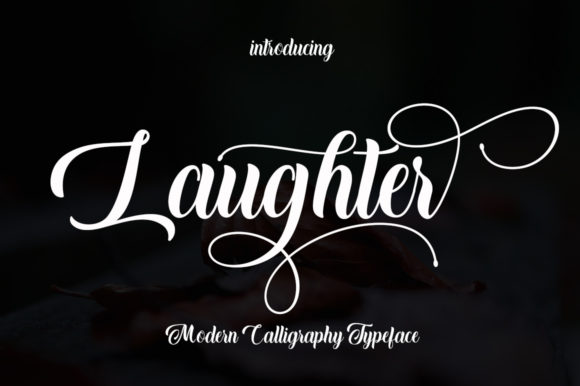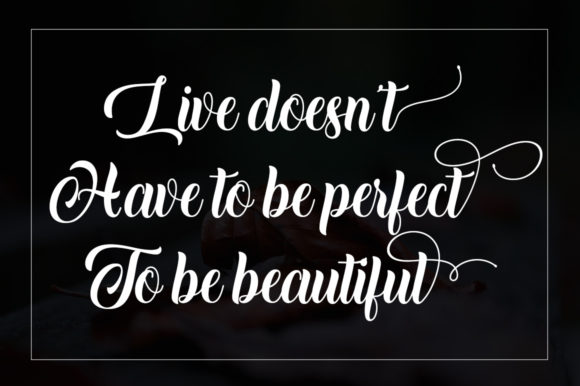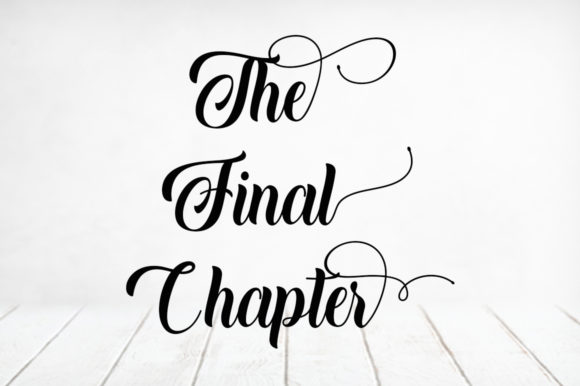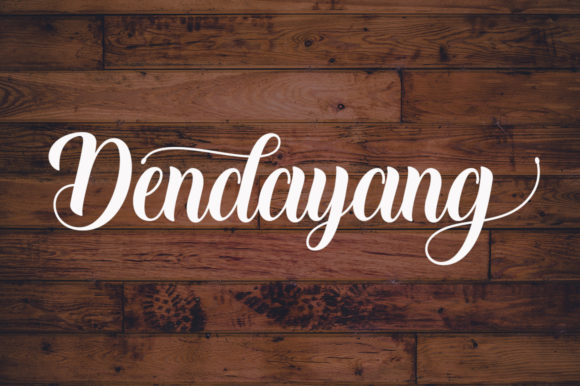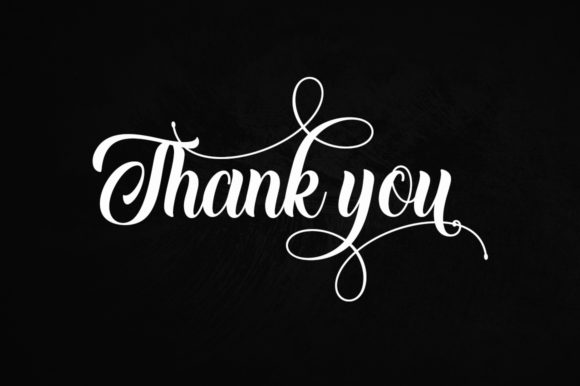
Laughter Font
About Laughter Font
Laughter is a stunning, classic and elegant script font with a unique vibe. Get inspired by its unique vibe, and turn any design idea into a true standout!